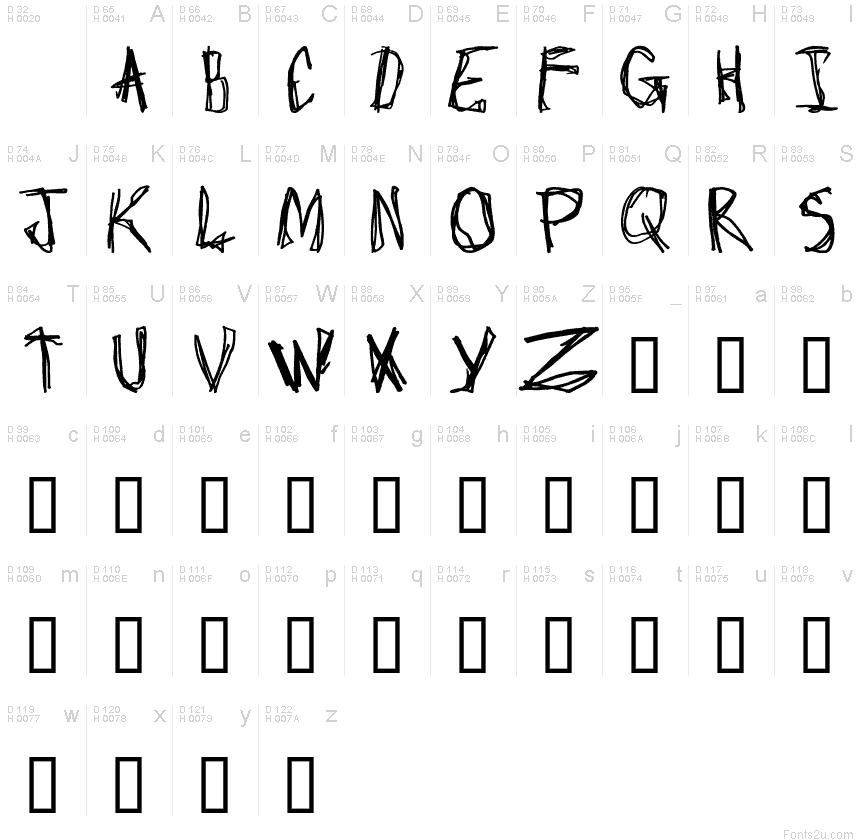
Craptacular
Craptacular font by Rev. Josh Wilhelm is a free handwritten typeface that looks like it was scrawled in frantic black ink on the back of a grimy notebook. The letters shoot up in gangly spikes, wobble off-center, and overlap with a raw, scratchy rhythm that feels loud even on a blank page. It has the messy energy of photocopied flyers, punk show posters, and margin doodles that got out of hand—in the best way.
Using Craptacular, your titles instantly pick up that unruly DIY attitude that polished fonts just can’t fake. This free font works beautifully for zines, gig or festival posters, horror‑comedy covers, edgy YouTube thumbnails, sticker designs, skateboard graphics, and Halloween party art. Set it big and bold for maximum chaos, then pair it with a plain, narrow sans serif for body text so the wildness of Craptacular stays readable and hits even harder.